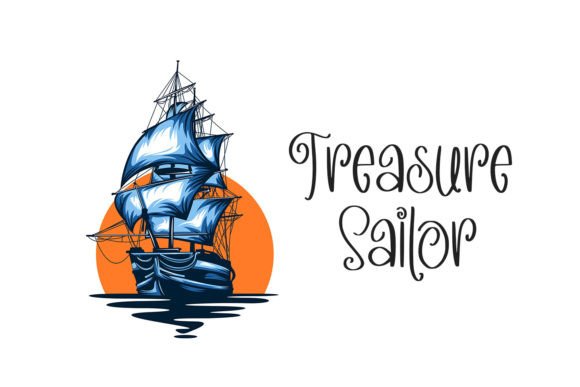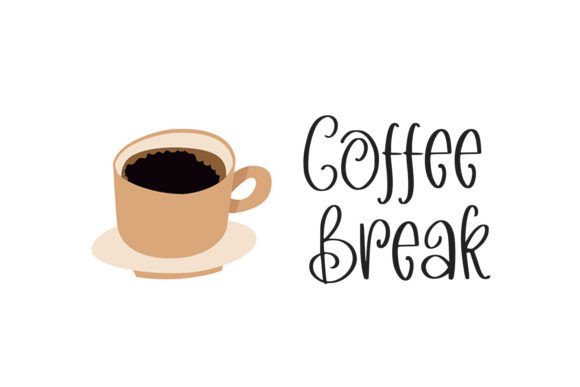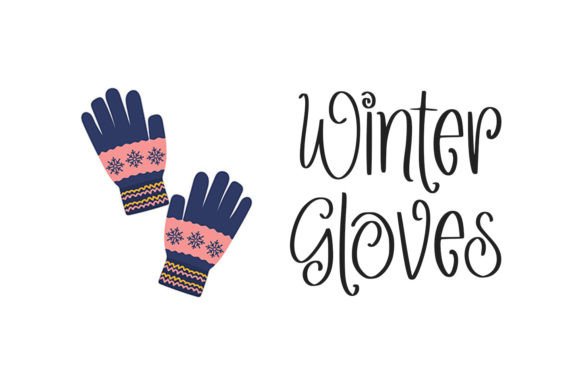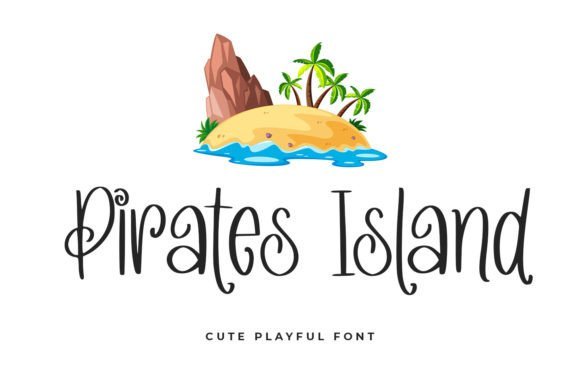
Introduction to Pirates Island Font
Pirates Island is a lovely and timeless handwritten font that is great for branding, games, kids’ wear, quotes, logos, t-shirt designs, tote bag designs, cards, banners, social media, and more.
Key Features of Pirates Island Font
Why Choose Pirates Island Font?
Pirates Island Font offers exceptional quality and versatility, making it a valuable addition to your design toolkit. Whether you’re creating for personal projects or commercial use, Pirates Island Font delivers professional results.